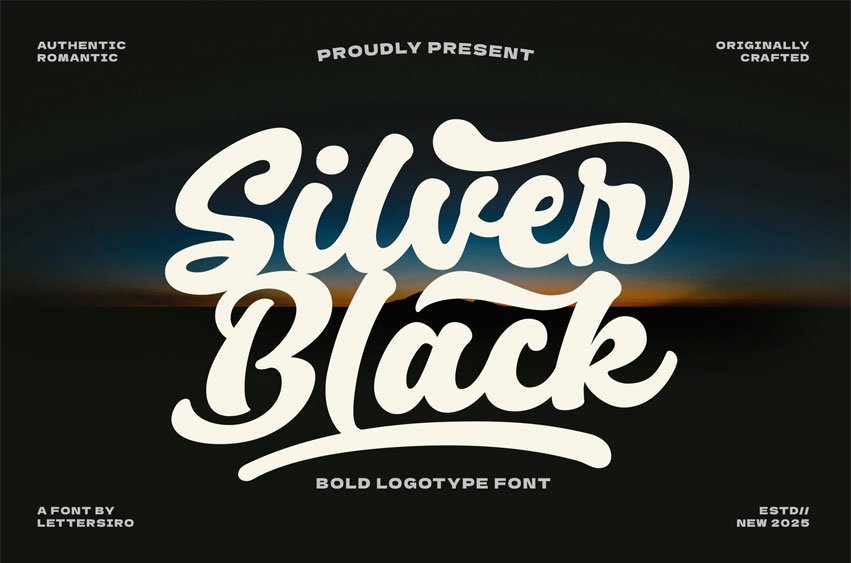
Silver Black Font
Silver Black Font is a bold and flowing logotype font designed to make your brand identity truly unforgettable. With its smooth curves, stylish swashes, and organic lettering style, this font is perfect for creating eye-catching logos, dynamic headlines, and professional branding projects. The combination of thick strokes and elegant movement gives Silver Black a strong yet friendly personality, ideal for projects that require a confident and modern touch.
Font Features:
• Expressive Logotype Style – Handcrafted bold lettering for impactful logo and branding work
• Alternates & Swashes – Creative stylistic alternates and ending swashes for custom compositions
• Ligatures – Unique letter combinations for a natural handwritten flow
• Complete Character Set – Includes uppercase, lowercase, numbers, punctuation, and symbols
• Multilingual Support – Covers multiple Western and international languages
Perfect For:
• Logo Design – Build distinctive, memorable wordmarks for businesses and personal brands
• Branding Projects – Create a consistent visual identity across print and digital media
• Advertising & Promotions – Design captivating headlines and promotional graphics
• Product Packaging – Add personality and charm to product labels and boxes
• Lettering Artwork – Perfect for posters, social media visuals, and signage